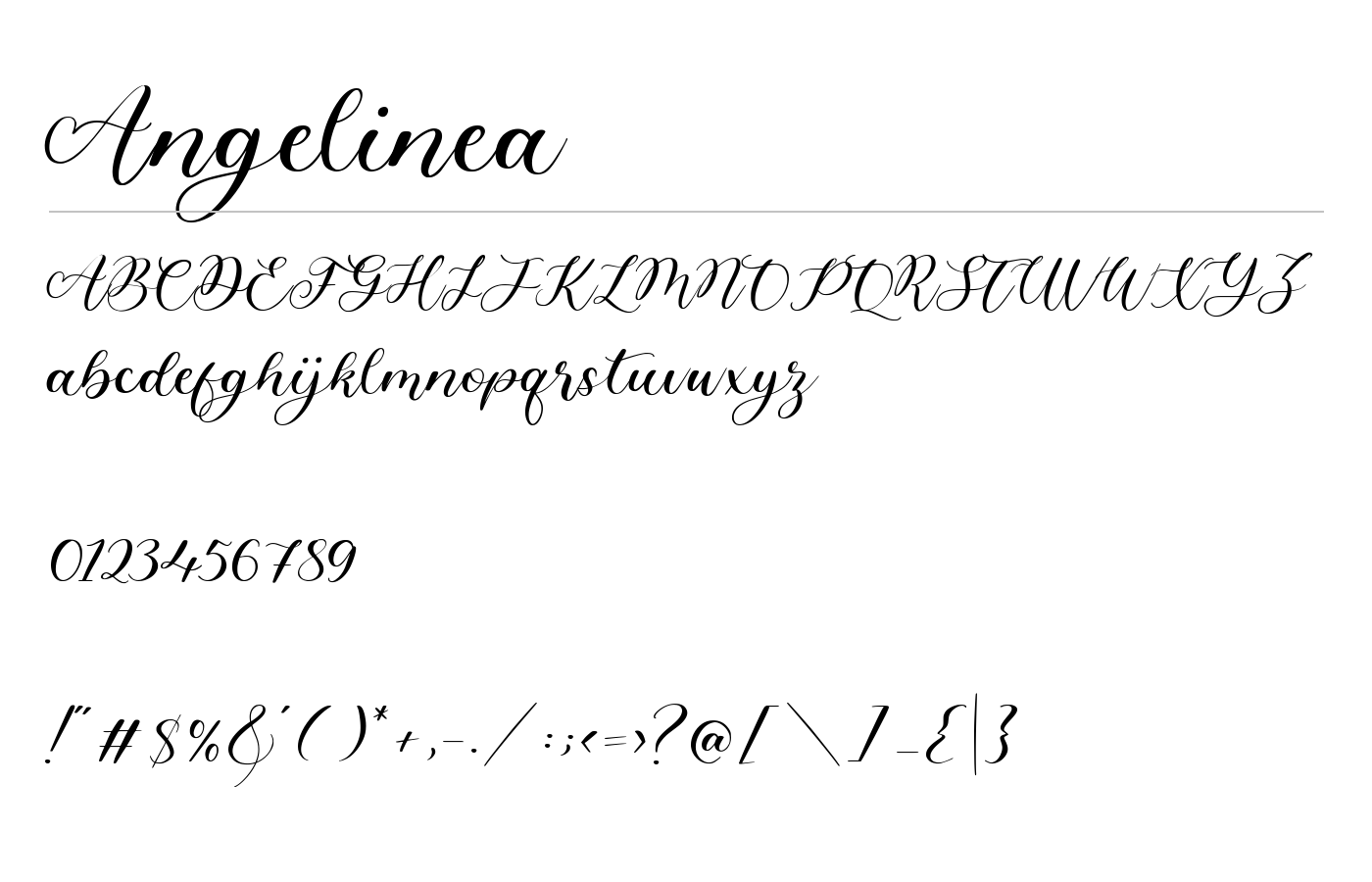
Angelinea is a delicate and elegant script font characterized by its flowing, calligraphic strokes and fine contrast between thick and thin lines. Its graceful curves and intricate letterforms make it perfect for sophisticated branding, wedding invitations, and feminine editorial projects. This font brings a timeless, romantic feel that works beautifully in use cases where a touch of refinement and charm is needed.
Angelinea Font
About Angelinea Font